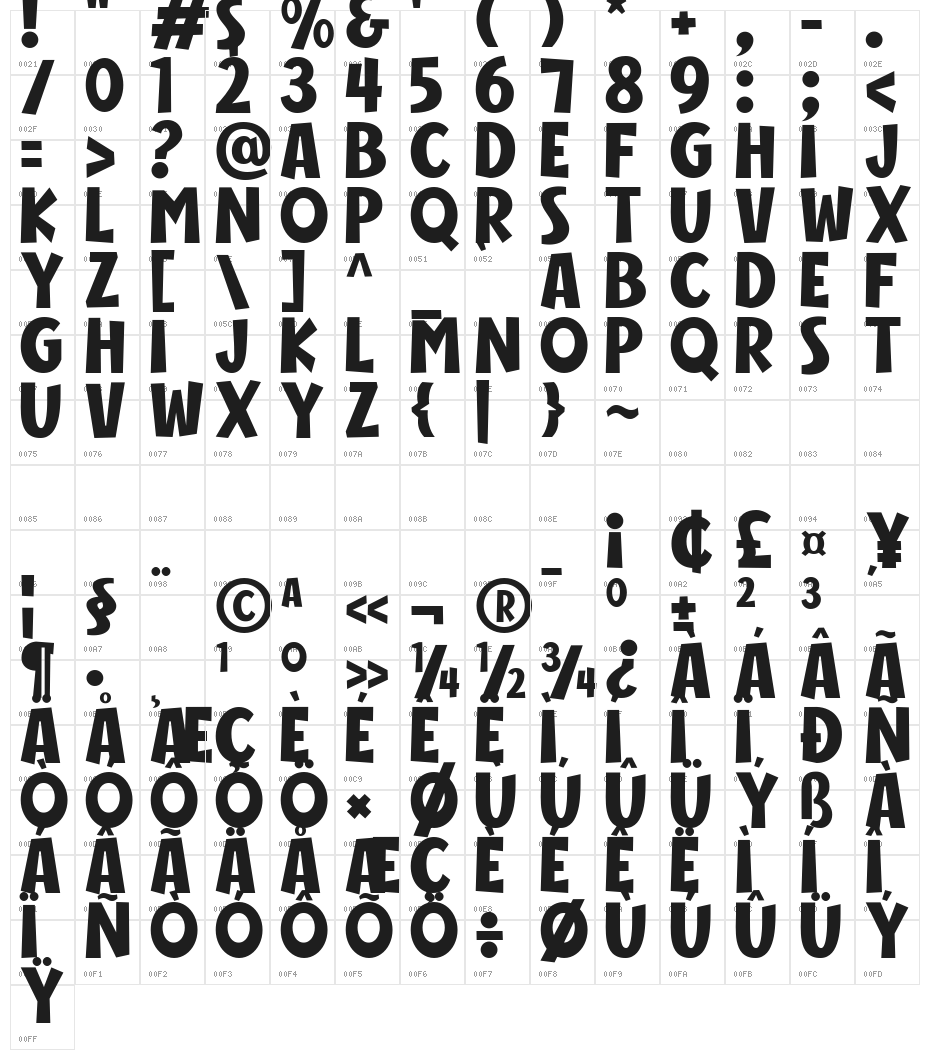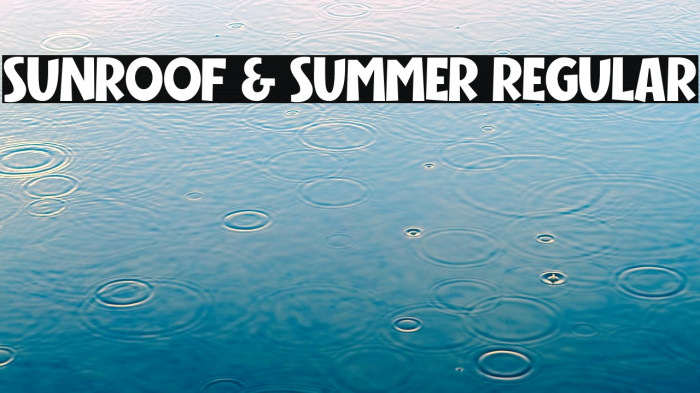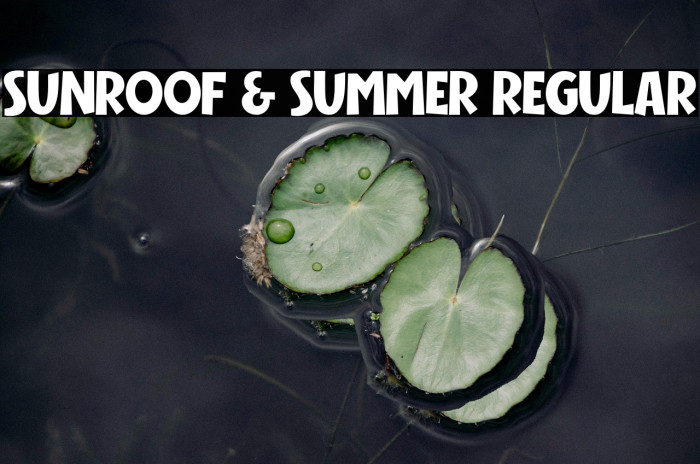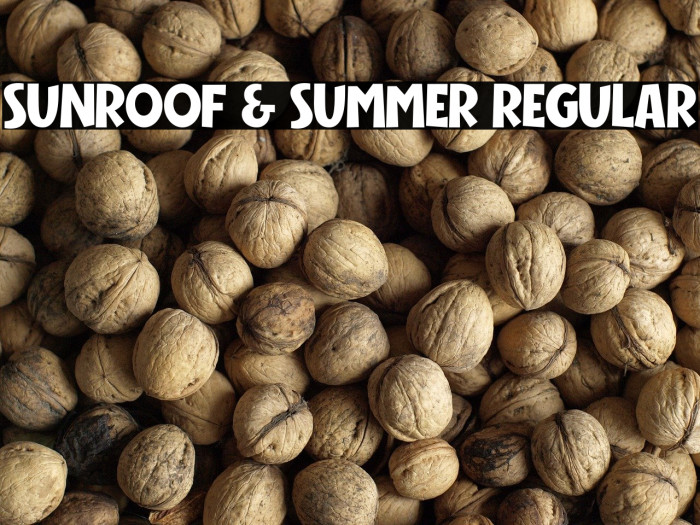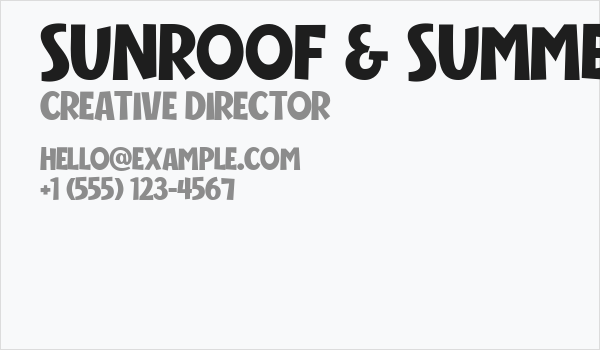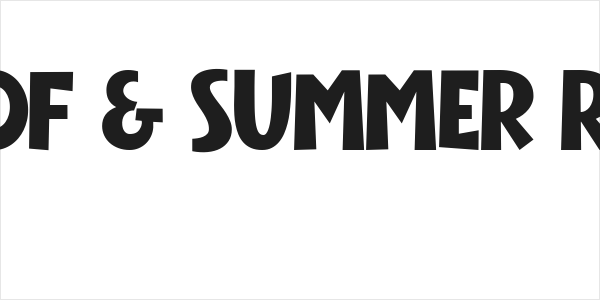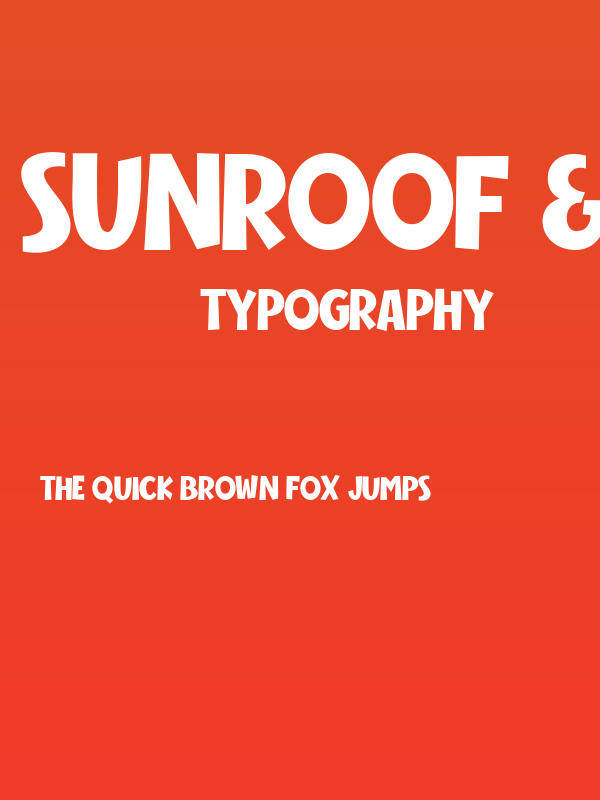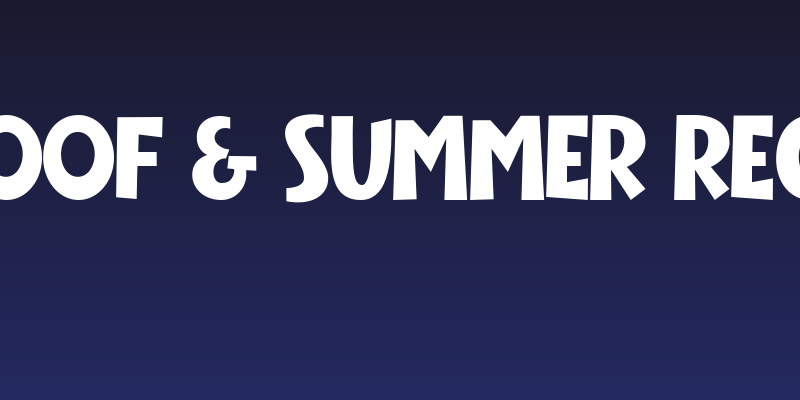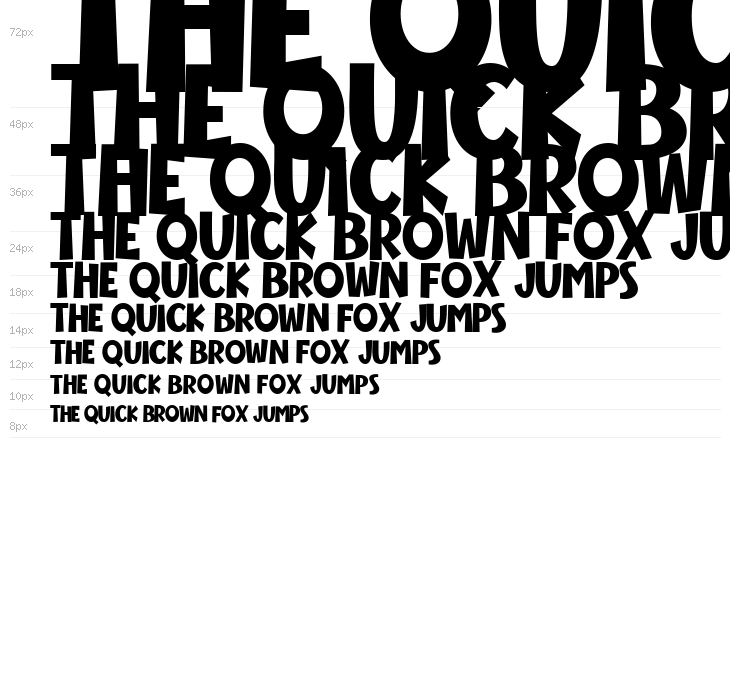
Sunroof & Summer Regular Font
Sunroof & Summer Regular Description
This font features a bold and playful design with a slightly irregular and hand-drawn appearance. The characters are thick and rounded, giving them a friendly and approachable feel. The uppercase and lowercase letters maintain a consistent style, with a slight tilt that adds to the dynamic and energetic look. The numerals and special characters follow the same aesthetic, ensuring uniformity across all glyphs. This font is well-suited for projects that require a fun and lively touch.
| Overall Style | Playful, Energetic, Hand-drawn |
| Proposed Projects | Ideal for children's books, playful branding, event posters, and casual invitations. |